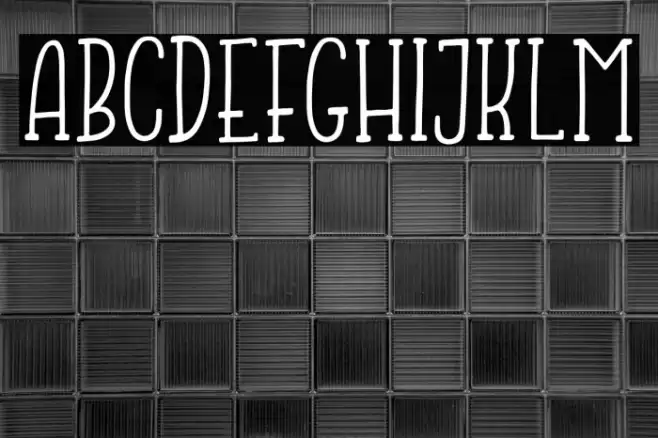
JumpingFrogDemo Font
JumpingFrogDemo Description
This font features a playful and whimsical design with tall, narrow letters that have a hand-drawn appearance. The uppercase letters are slightly elongated, giving them a unique and quirky look. The lowercase letters maintain the same playful style, with consistent stroke widths that add to the font's charm. The numbers and special characters follow the same design principles, ensuring a cohesive appearance across all glyphs. This font is perfect for projects that require a fun and informal touch, such as children's books, greeting cards, or playful branding materials.
A playful, hand-drawn font with tall, narrow letters and a whimsical style from Cartoon fonts.
- Proposed Projects: Ideal for children's books, greeting cards, playful branding, and informal designs.
- Overall Style: Whimsical